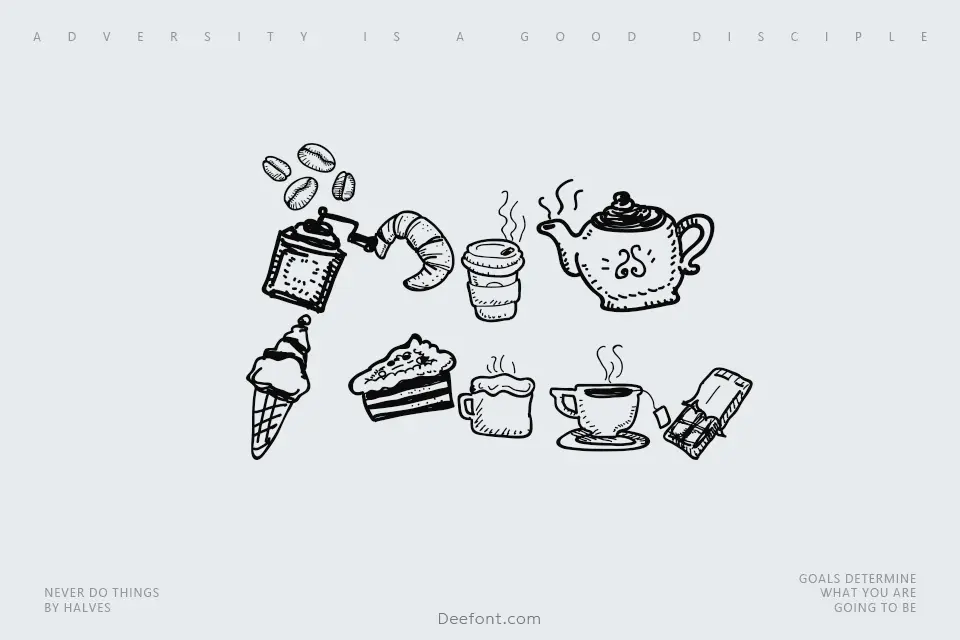
Doodle Coffee Scents Font
Doodle Coffee Scents Font is a whimsical dingbat typeface designed by Galdino Otten, perfect for adding a playful touch to your projects. This unique font features a delightful collection of 13 coffee-themed glyphs and food elements, making it ideal for coffee shops, menus, and casual branding. Its modern design blends charm with functionality, allowing creators to express their love for coffee visually. Available for free for personal use, Doodle Coffee Scents Font invites users to infuse their designs with warmth and creativity, capturing the essence of cozy coffee moments in every letter and symbol.